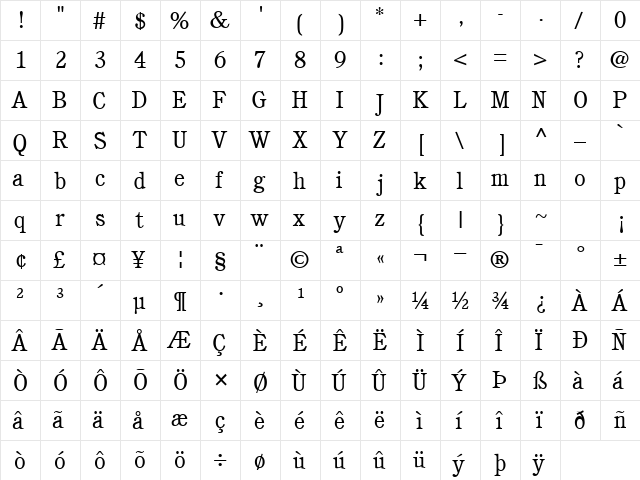
PerspectiveSSK Regular
Design Context for PerspectiveSSK Typeface
PerspectiveSSK is a composed and adaptable typeface that performs quietly and consistently across a wide range of design contexts.